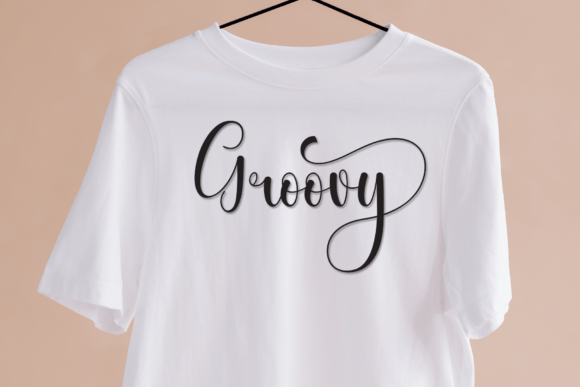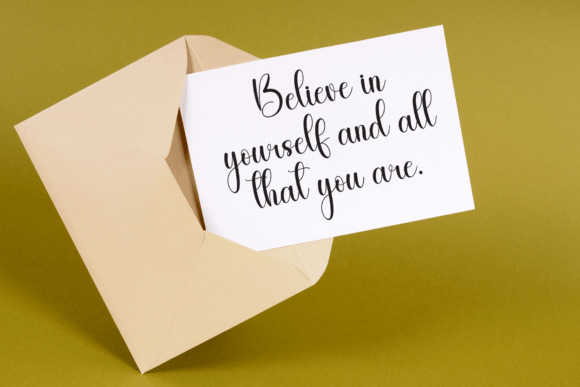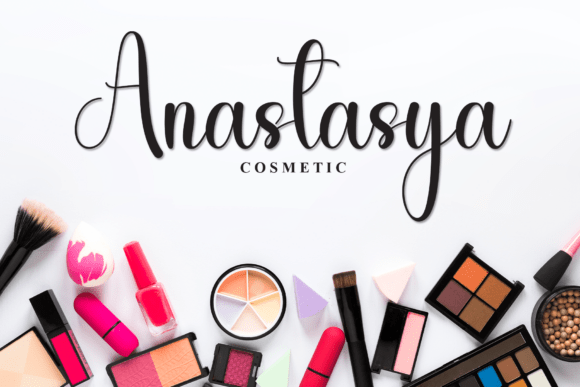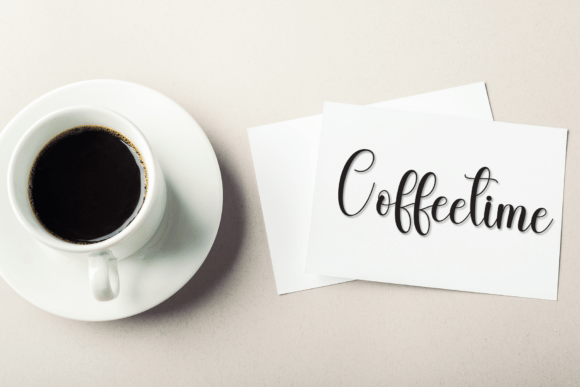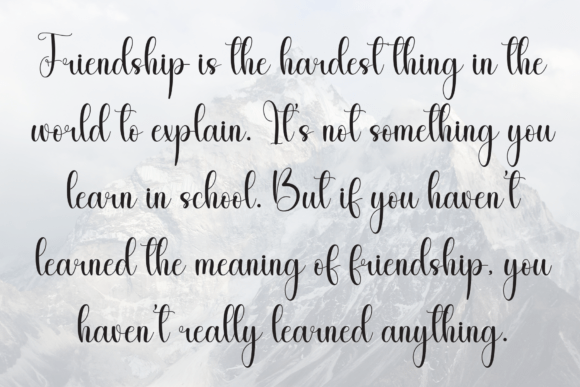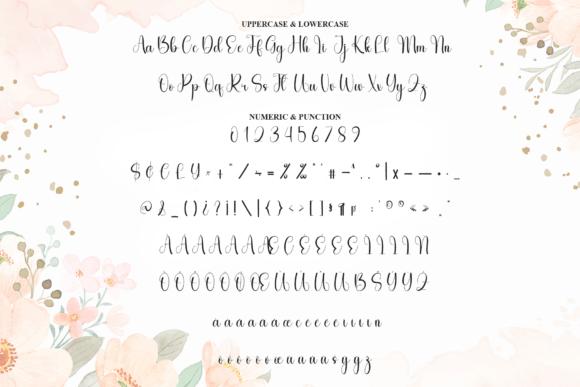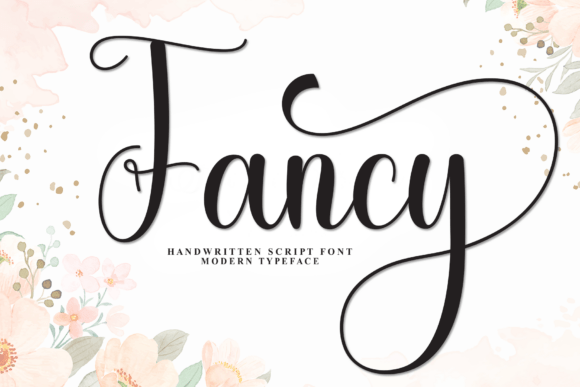
Fancy Font: Adding a Touch of Warmth and Whimsy to Your Designs
Are you looking for a font that can add a dash of excitement and joy to your wedding invitations, cards, or any project? Look no further than the Fancy Font, a skillfully designed handwritten font that exudes warmth and amiability. With its endearing and light-hearted design, this font is sure to touch hearts and emanate positivity.
The Characteristics of Fancy Font
The Fancy Font is a unique and captivating font that boasts a range of characteristics that make it perfect for designers and crafters. Its gentle and merry touch is exclusive to this font, making it a standout choice for any project. The font’s design is reminiscent of handwritten scripts, with flowing lines and curves that give it a personal and intimate feel.
Uses for Fancy Font
The Fancy Font is incredibly versatile and can be used for a wide range of projects. Some of the most popular uses for this font include:
• Wedding invitations and stationery: The Fancy Font is perfect for adding a touch of romance and whimsy to wedding invitations, save-the-dates, and other stationery.
• Greeting cards: Whether you’re creating birthday cards, thank-you cards, or holiday cards, the Fancy Font is sure to add a dash of excitement and joy.
• DIY projects: The Fancy Font is a great choice for DIY projects, such as scrapbooking, journaling, and crafting.
• Digital designs: The Fancy Font can also be used for digital designs, such as social media graphics, blog headers, and website titles.
Benefits of Using Fancy Font
There are many benefits to using the Fancy Font in your designs. Some of the most significant advantages include:
• Uniqueness: The Fancy Font is a one-of-a-kind font that will set your designs apart from the rest.
• Emotional connection: The font’s warm and amiable design is sure to create an emotional connection with your audience.
• Versatility: The Fancy Font can be used for a wide range of projects and can be paired with a variety of other fonts and design elements.
Tips for Using Fancy Font
Here are a few tips for using the Fancy Font in your designs:
• Pair with other fonts: The Fancy Font pairs well with a variety of other fonts, including serif and sans-serif fonts.
• Use for headings: The Fancy Font is perfect for headings and titles, but can also be used for body text.
• Experiment with colors: The Fancy Font looks great in a variety of colors, from bright and bold to soft and pastel.
• Keep it simple: Don’t be afraid to keep your design simple and let the Fancy Font be the star of the show.
The Fancy Font is a unique and captivating font that is sure to add a touch of warmth and whimsy to your designs. With its endearing and light-hearted design, this font is perfect for wedding invitations, cards, and any project seeking a dash of joy. Whether you’re a designer or crafter, the Fancy Font is a great choice for anyone looking to add a little excitement and positivity to their work.
Get Ready to Dive into the World of Fancy Font
So, are you ready to dive into the captivating world of the Fancy Font? With its gentle and merry touch, this font is sure to touch hearts and emanate positivity. Take your designs to soaring heights with the Fancy Font – a skillfully designed handwritten font that is sure to bring a dash of excitement and joy to any project.